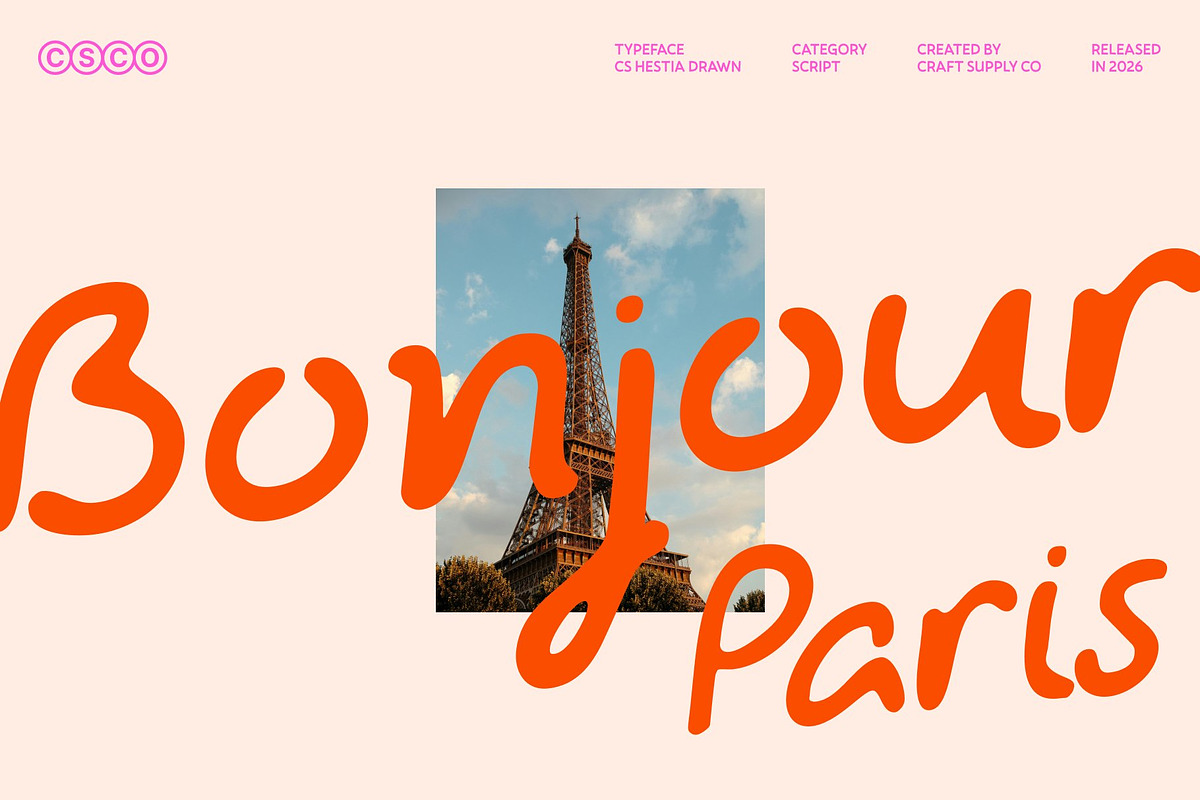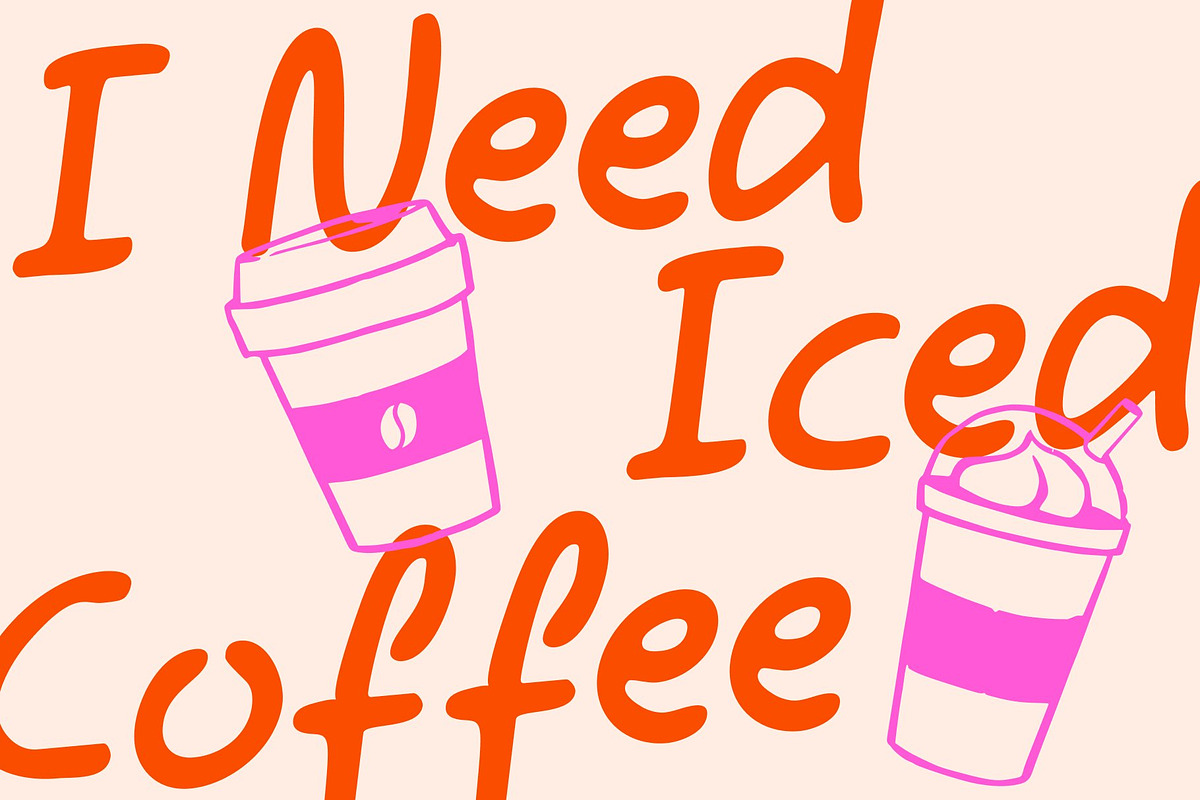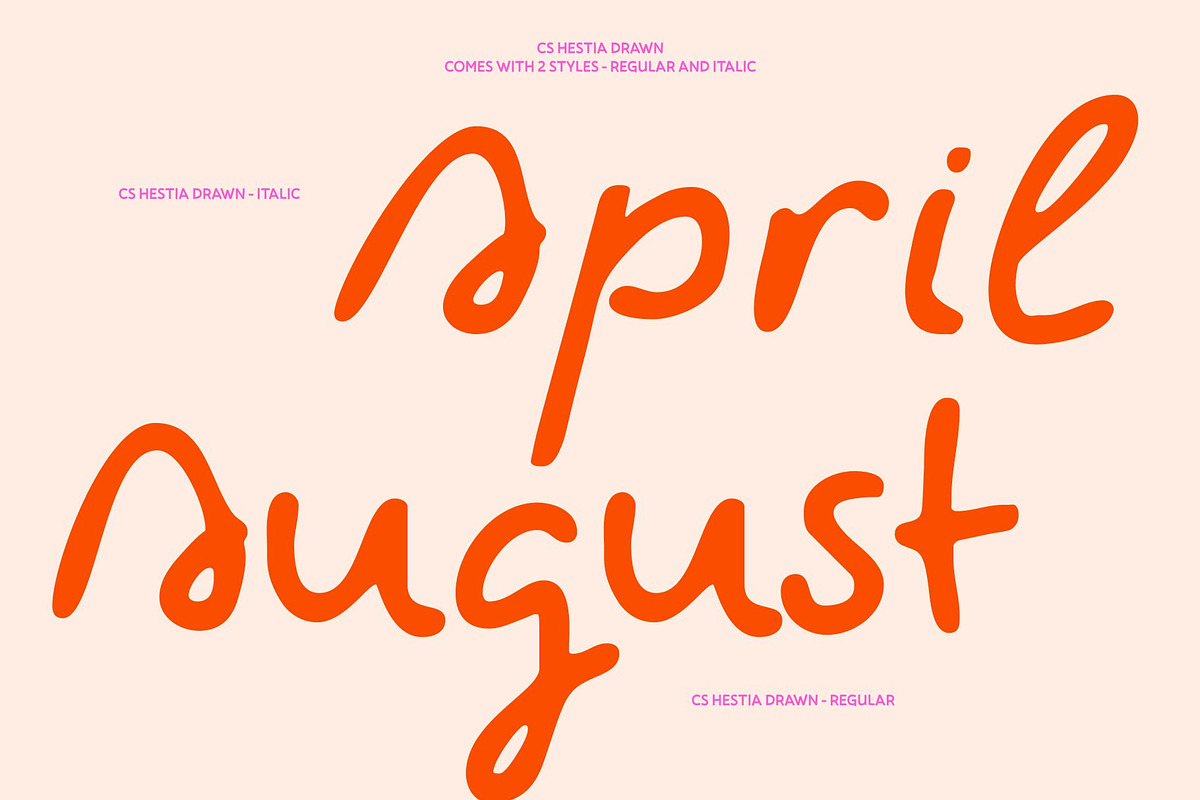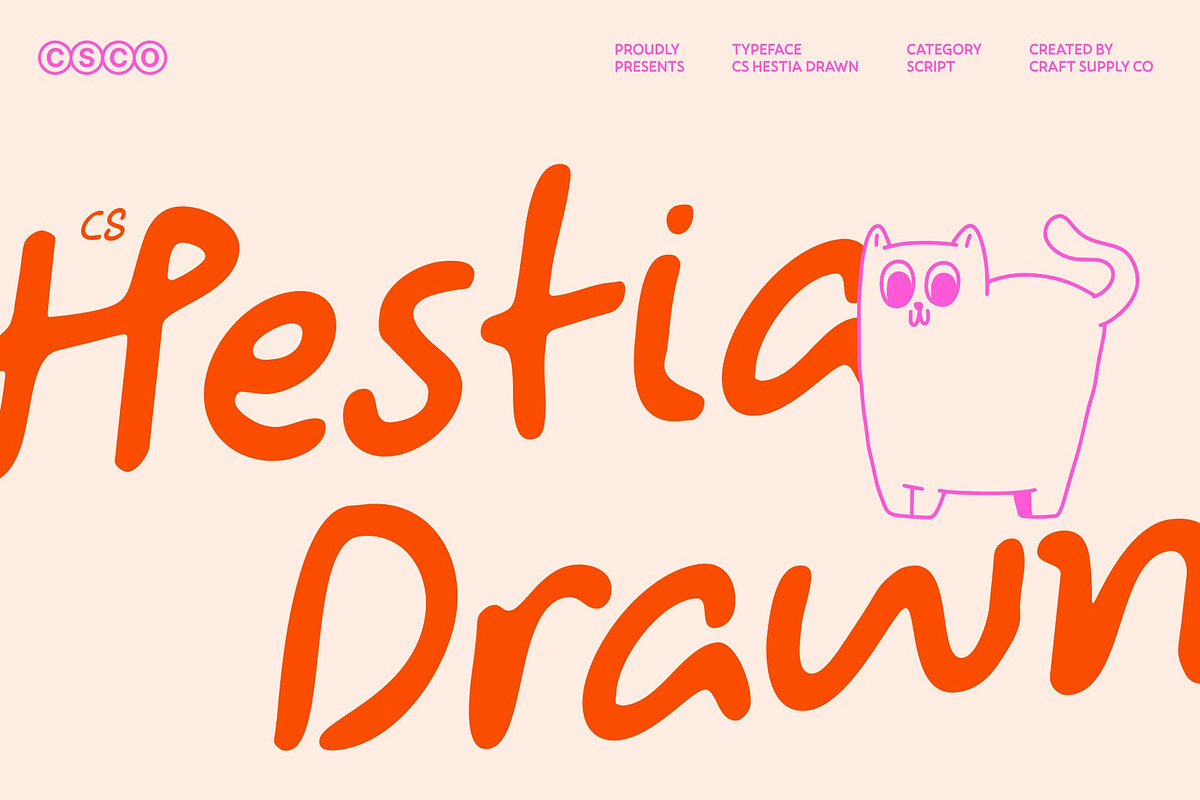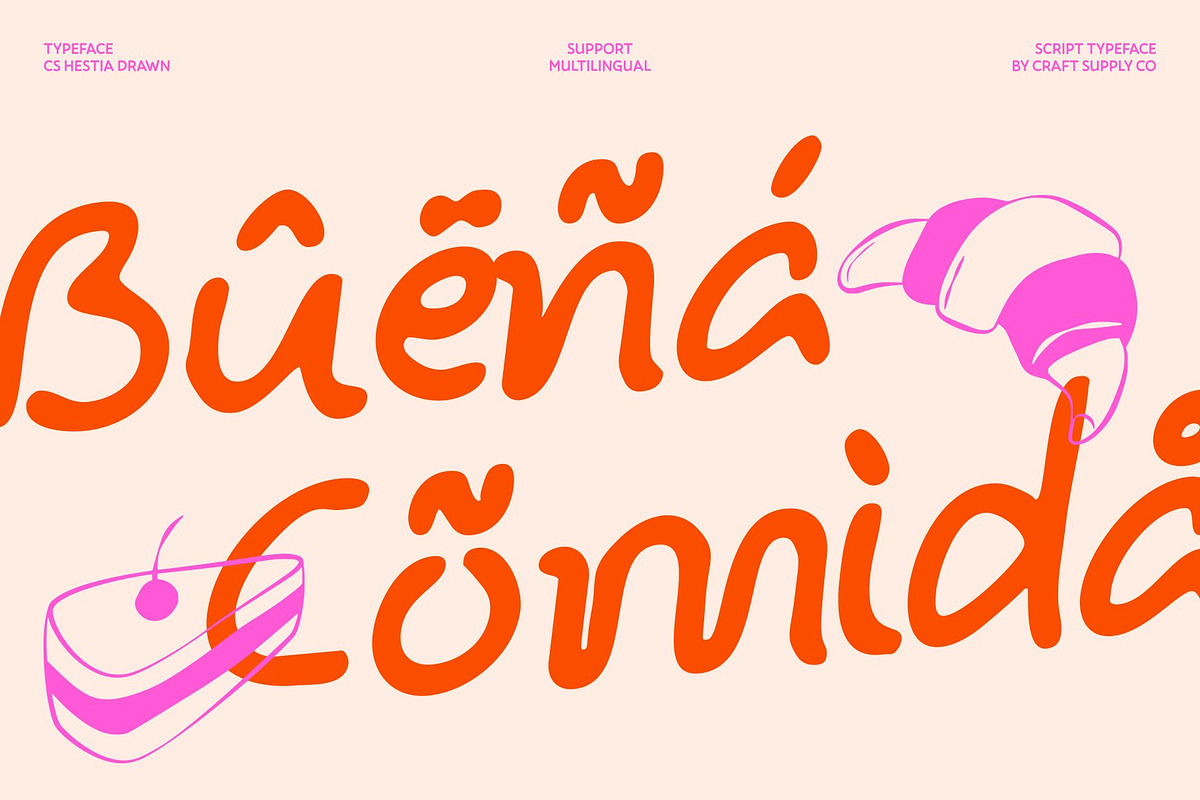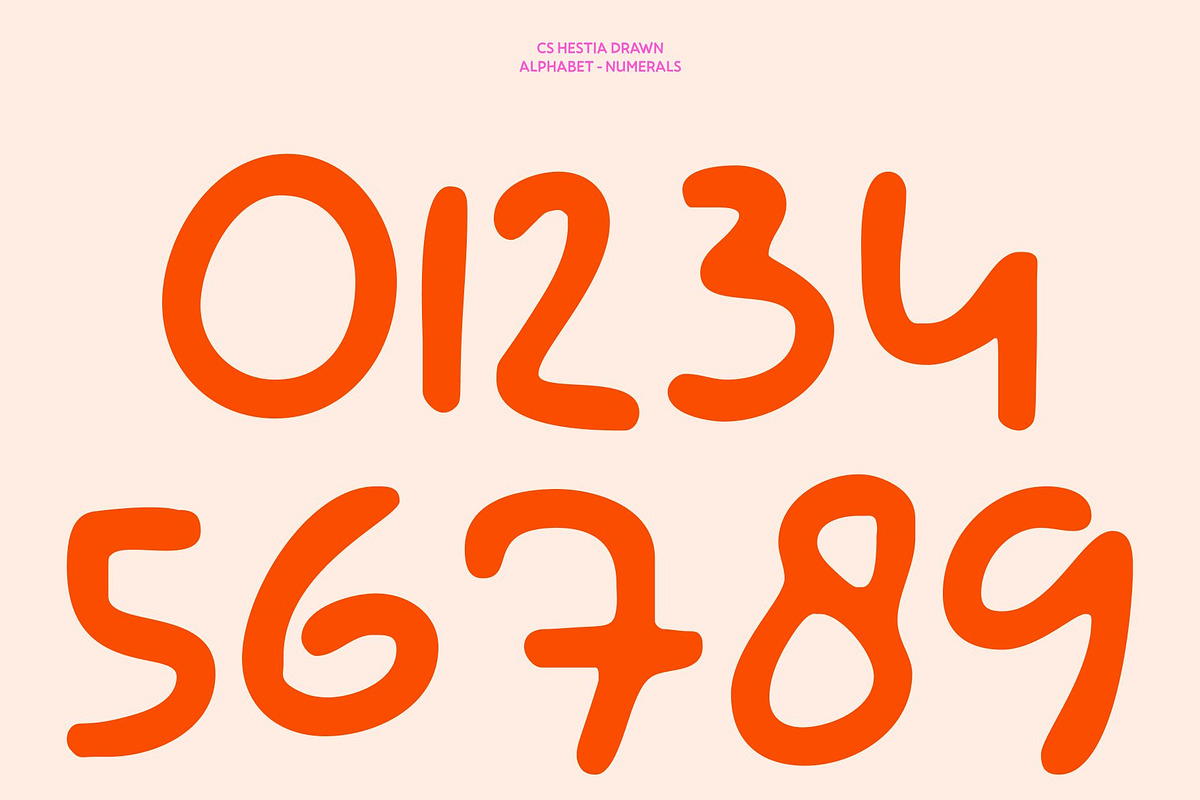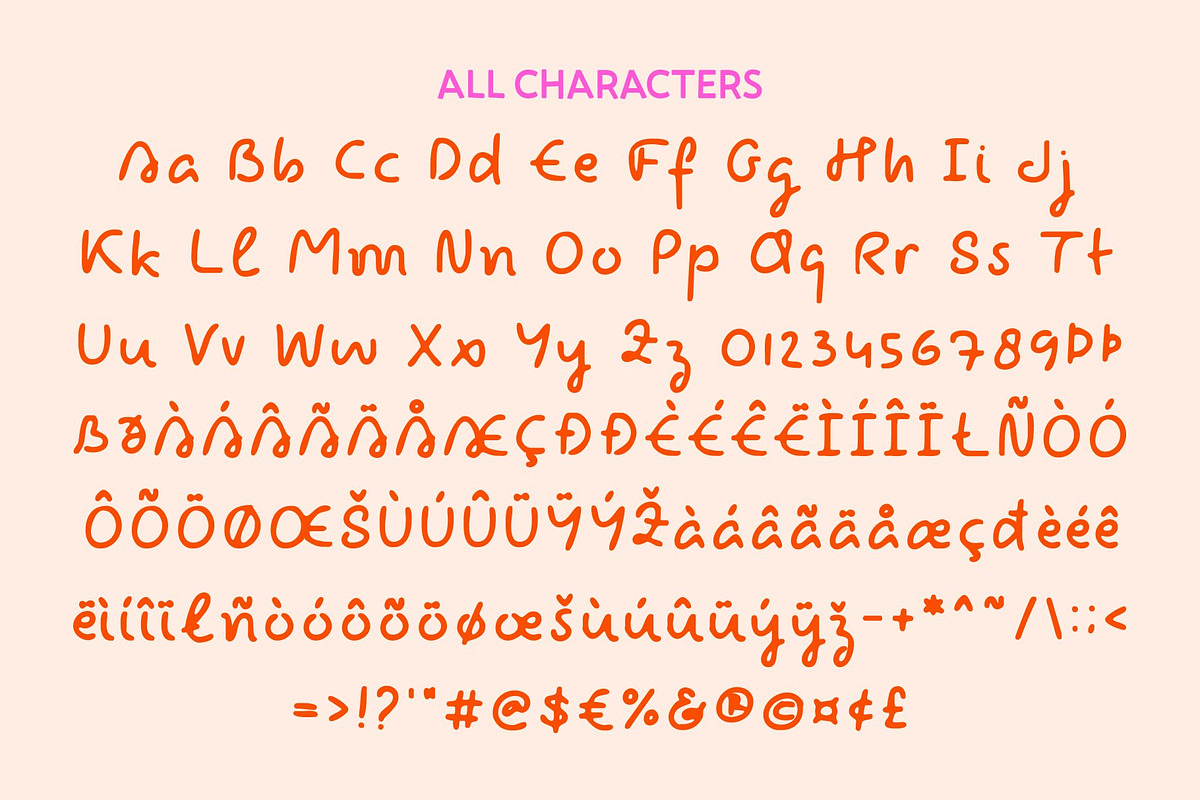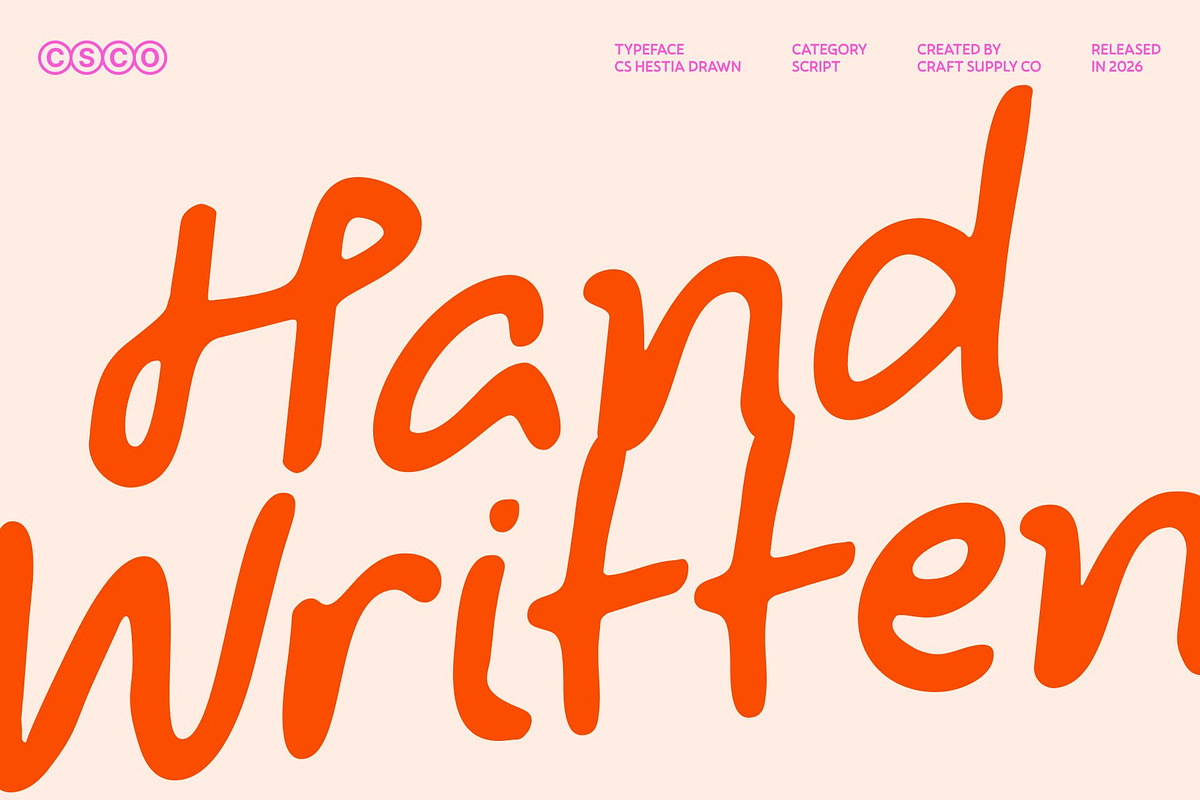
CS Hestia Drawn
CS Hestia Drawn – Fun Handwritten Display with Playful Energy
Energetic Handwritten Style with Friendly Charm This is a fun handwritten display font created to bring lively, playful energy into your designs. Its friendly letterforms and cheerful rhythm create an instantly approachable vibe, while the hand-drawn texture adds warmth and authenticity. This font feels joyful, expressive, and full of personality perfect for designs that celebrate creativity and youthful spirit.
Quirky Shapes with Expressive Movement The letterforms feature quirky, slightly irregular shapes that enhance the font’s playful character. Each letter feels spontaneous and dynamic, creating a lively visual flow that keeps typography engaging. The drawn finish strengthens its handmade feel, making every word appear natural, animated, and full of charm.
Friendly Handwritten Flow with Casual Appeal Built on smooth curves and relaxed strokes, this font delivers a friendly handwritten flow that feels personal and inviting. Its casual structure maintains good readability while preserving a fun, energetic tone. This balance makes ideal for expressive layouts that need to feel warm, cheerful, and approachable.
Perfect for Youth Branding and Playful Designs Designed for youth branding, greeting cards, casual projects, posters, social media content, and playful packaging, shines in display use. Whether used for cheerful headlines, creative logos, or lively event materials, it adds a vibrant, friendly, and joyful handwritten presence that brings designs to life.